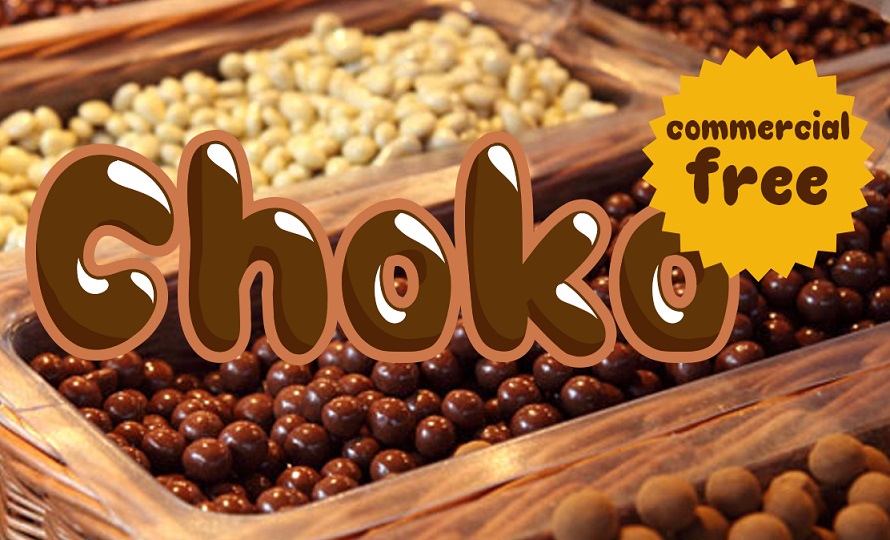
Choko Font
Choko Font is perfect for dessert branding, chocolate packaging, sweet shop logos, bakery signage, confectionery labels, food blogs, dessert menus, café branding, candy store displays, and gourmet food marketing.
Choko Font is exciting because it embodies the delicious appeal of artisanal confections with its rich, indulgent character that instantly evokes the warmth and sweetness of premium chocolate experiences. Its delightful letterforms combine playful charm with sophisticated taste, making it perfect for brands that want to communicate quality, indulgence, and irresistible appeal in the competitive food and beverage market.
The Choko Font family includes Light, Regular, Bold, Extra Bold weights, playful Italic variations, Outline styles, Shadow effects, Decorative elements, and Sweet alternates, providing designers with comprehensive creative tools for delicious typography that captures the essence of premium confectionery branding.
Whether you're launching chocolate brands, designing dessert packaging, creating bakery identities, or developing gourmet food experiences, Choko Font provides the sweet foundation needed for memorable brand connections. Its appealing character makes it particularly effective for artisanal chocolatiers, premium bakeries, dessert restaurants, and specialty food retailers that celebrate quality and craftsmanship.
Perfect for food marketers, pastry chefs, confectionery designers, and culinary brand developers, this font offers the delicious qualities essential for successful food branding. The typeface's versatile nature ensures consistent appeal across packaging design, digital marketing, and retail environments.
Choko Font includes comprehensive character support, food-focused design elements, and optimized spacing that ensures appetizing results in culinary design applications. Its sweet approach to typography makes it invaluable for brands seeking to communicate indulgence and quality. Create irresistible designs with Choko Font Free Download and discover typography that's simply delicious.